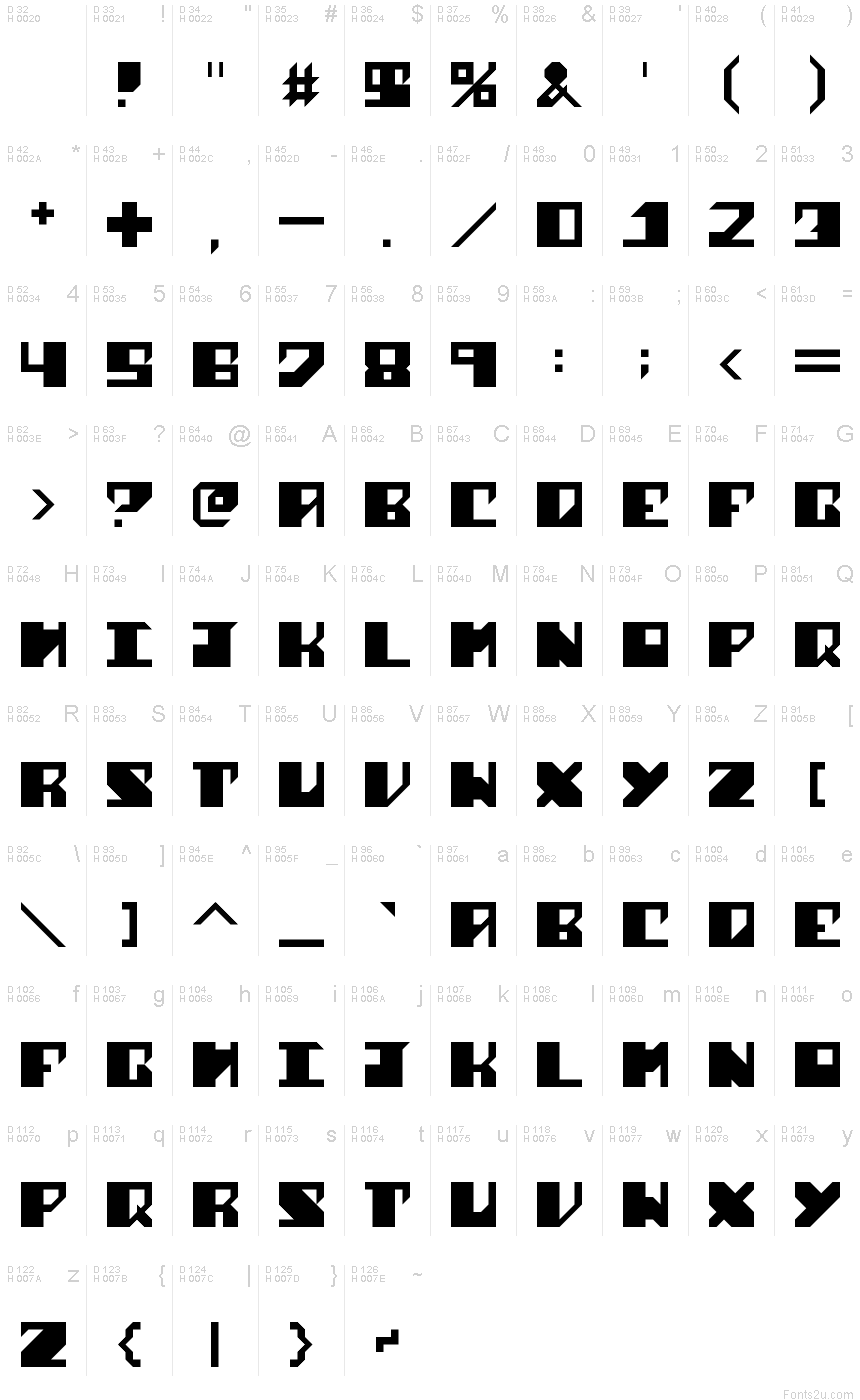
Shark Week Regular
Happy Shark Week Everyone - Strike fear and awe into your reader with this vicious font from design student Devon Burgoyne (@ devonburgoyneart.carbonmade.com)
“Shark Week” was built with FontStruct